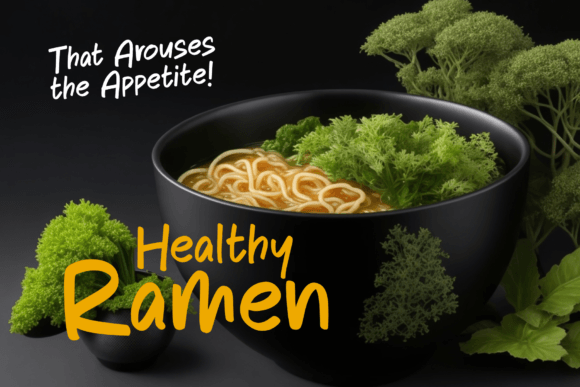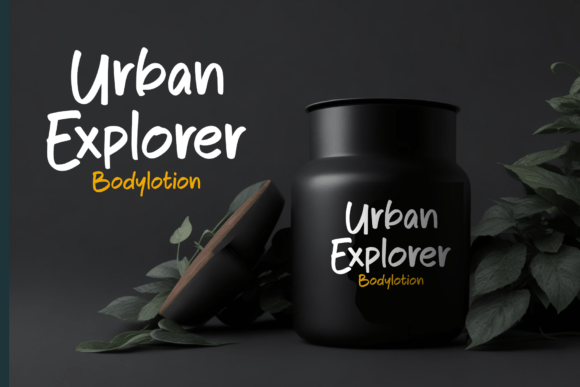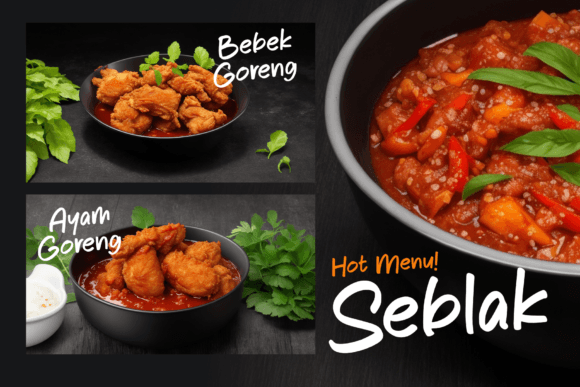
Introduction to Newyear Playtime Font
Remember the rush of excitement when you finally find the perfect font for a creative project? It’s like the stars have aligned and your design vision starts to take shape. For many designers, that ‘aha’ moment is what makes all the hard work worth it. And if you’re looking for a font that embodies the essence of fun and celebration, look no further than the Newyear Playtime Font.
As a versatile and sophisticated display font, Newyear Playtime Font is the ideal choice for renowned brands seeking a distinctive touch. With its playful yet refined design, this font effortlessly elevates any product or brand, adding a touch of joy and modernity. Whether you’re working on a high-quality design project or simply looking for a reliable design resource, the Newyear Playtime Font is sure to impress.
Key Features of Newyear Playtime Font
- High-quality design resource ideal for creative projects, including invitations, posters, and social media graphics.
- Unique, playful design elements and characters make it perfect for adding a festive touch to your creative project.
Honest Review: Newyear Playtime Font
As a designer, I’m always on the lookout for unique and creative design resources to add some flair to my projects. Recently, I stumbled upon the Newyear Playtime Font and I’m excited to share my thoughts on it.
One of the things that stood out to me about this font is its high quality and versatility. It’s perfect for any creative project that requires a playful and festive touch, making it ideal for designs related to holidays like New Year’s Eve or Christmas.
- ✨ High quality design that looks great on a variety of backgrounds, including transparent backgrounds
- ✨ Perfect for creative projects that require a playful and festive touch
- ⚠️ Limited number of font styles available (only 1 regular style and 1 bold style)
- ⚠️ Not ideal for projects that require a more formal or professional tone
Overall, I’m impressed with the Newyear Playtime Font and I think it’s a great addition to any designer’s toolkit. While it may have some limitations, its high quality and versatility make it a valuable resource for any creative project.
The Newyear Playtime Font is ideal for various creative projects, including:
- New Year’s Eve invitations and decorations
- Party and event graphics
- Personalized gifts and cards
To get the most out of the Newyear Playtime Font, use it with a transparent background to create a modern and sleek look. Experiment with different font sizes and colors to add visual interest to your design project.